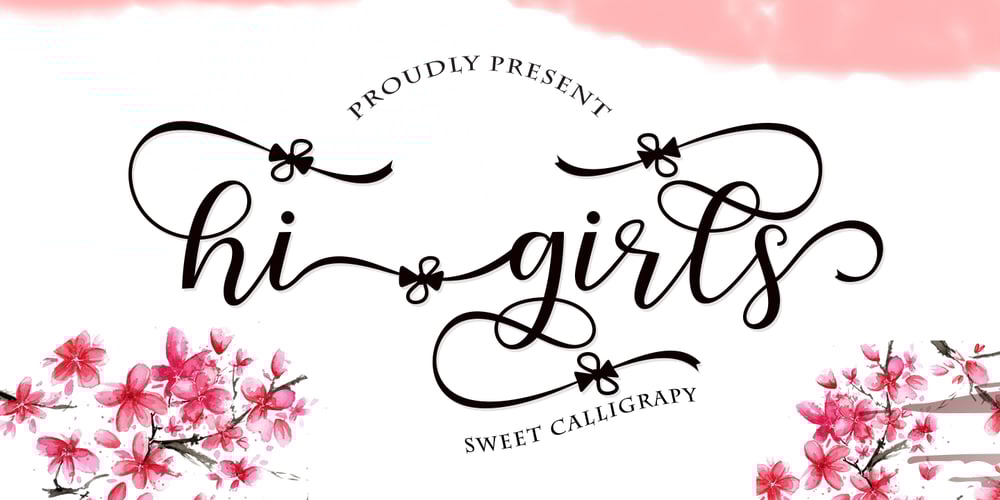
Hi Girls
Hi Girls font
Hi Girls Font Family was designed by Nasrullah and published by Sulthan Studio. Hi Girls contains 1 styles and family package options. Hi Girls – New fonts, fresh, cute, attractive calligraphy, plus a small and sweet headband ribbon, this is very interesting and you will love to try itHi Girls – including many alternative characters. Coded with Unicode PUA, which provides full access to all additional characters without having special design software. Mac users can use Font Book. Windows users can use the Character Map to view and save one of the additional characters to attach to your favorite text editor. For people who have opentype-capable software: Alternatives can be accessed by using the “Alternative Style” and “Ligature” buttons on the Photoshop Characters panel, or through any software with glyph panels, such as Adobe Illustrator, Photoshop CC, Inkscape.